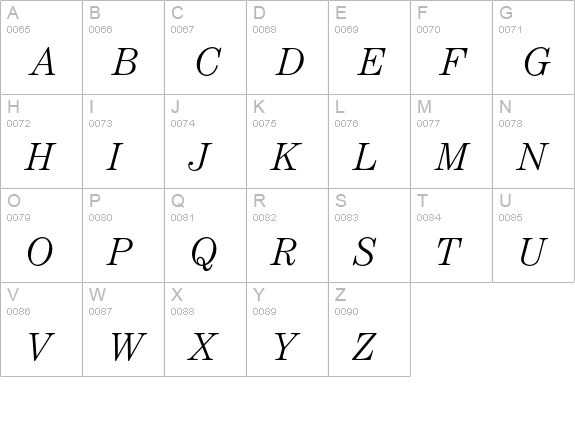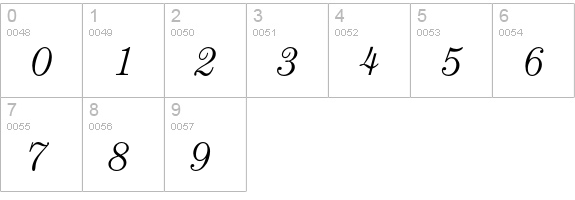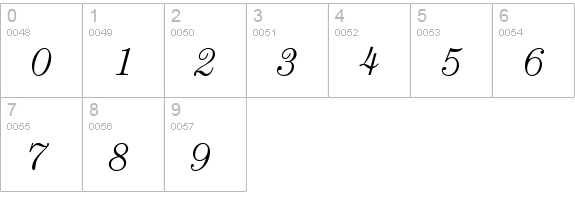
CenturyEF-LightItalic Font Details
CenturyEF-LightItalic is a sleek and elegant font that exudes sophistication and modernity. Its light italic style adds a touch of finesse to any design project, making it perfect for creating refined and stylish text. This font is designed with precision and attention to detail, resulting in a graceful and timeless typeface that is sure to elevate the aesthetic of any layout. What's even better is that CenturyEF-LightItalic is available for free download at FontsMarket.com. This means that you can easily access this exquisite font without any cost, making it a valuable addition to your font collection. Whether you're working on a branding project, website design, or any other creative endeavor, CenturyEF-LightItalic is a versatile and sophisticated choice that will enhance the visual appeal of your work. Download it today and elevate your designs with this beautiful and freely accessible font.